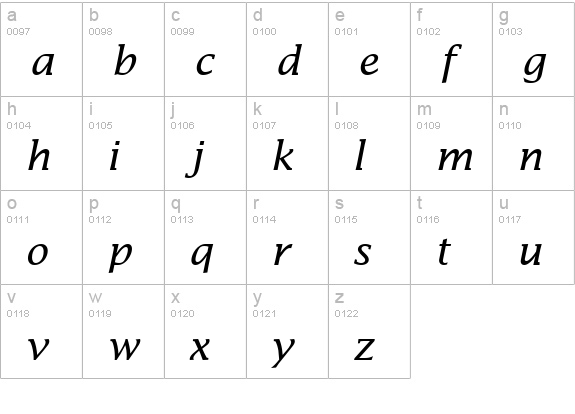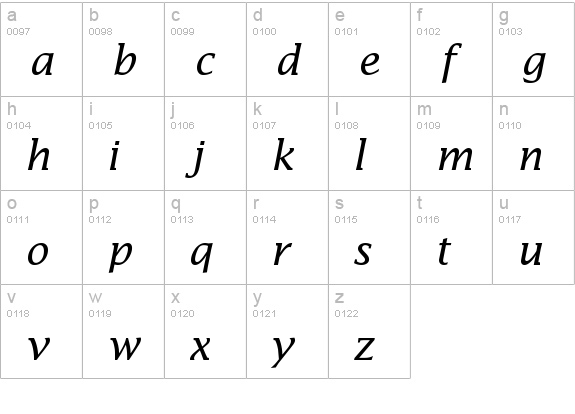
Insight Math Extension SSi Alternate Extension Font Details
Introducing the Insight Math Extension SSi Alternate Extension font, a powerful and versatile typeface that takes your mathematical expressions and equations to a whole new level. This font is designed to elevate your mathematical texts with its unique and intricate design, making them visually engaging and easily understandable. The Insight Math Extension SSi Alternate Extension font offers a wide range of alternate extensions for every character, allowing you to customize and enhance your mathematical compositions with precision and creativity. Each character is meticulously crafted to maintain the highest level of accuracy and clarity, ensuring that your mathematical expressions are effectively communicated. What makes this font even more amazing is that it is available for free! Yes, you read that right. The Insight Math Extension SSi Alternate Extension font can be freely downloaded from FontsMarket.com, making it accessible to all mathematicians, educators, and enthusiasts who are passionate about math and want to elevate its representation in their work. With the Insight Math Extension SSi Alternate Extension font, you can bring your mathematical texts to life, whether it's in textbooks, research papers, presentations, or any other mathematical documentation. Its stunning design and versatility make it suitable for various applications, from educational materials to scientific publications. Don't miss out on this incredible opportunity to enhance your mathematical compositions with the Insight Math Extension SSi Alternate Extension font. Download it for free at FontsMarket.com and unlock a world of possibilities for your mathematical expressions. Elevate your work, captivate your audience, and make math truly come alive with this exceptional typeface.